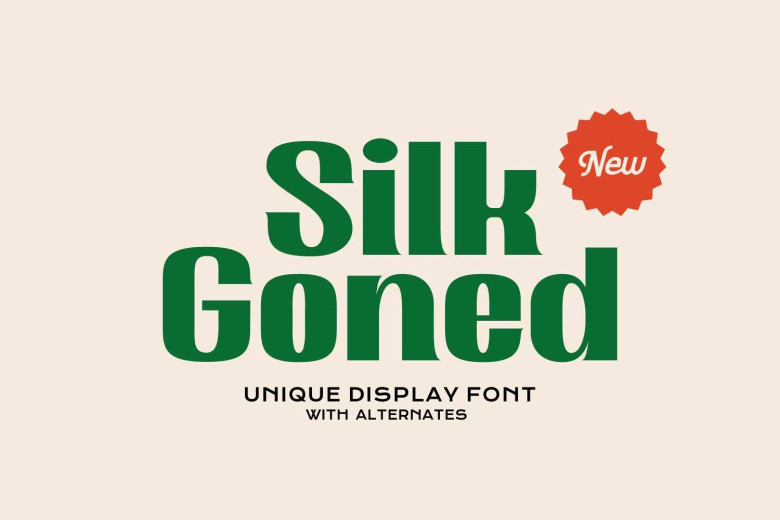
Silk Goned Font
Silk Goned features a modern, elegant font full of flowing curves and striking ligatures that will make your work appear professional and engaging.
This font is extremely versatile and works beautifully at both large and small sizes, making it suitable for numerous projects such as logos and invitations. Furthermore, this font can also be used for branding, magazines, photography cards product packaging mockups mockup quotes posters labels signatures editorials websites art deco social media.
This font is ideal for personal projects, studios and corporate settings such as creative agencies, companies, industries and more.
Silk Goned Display Font